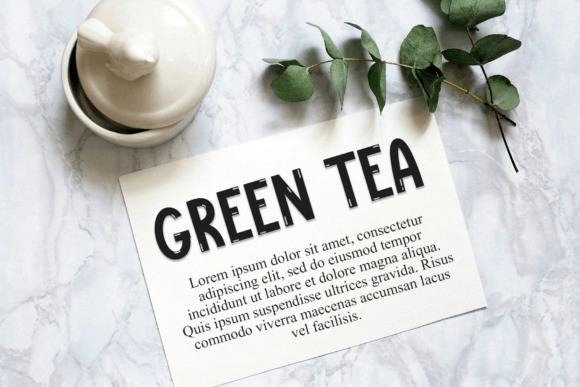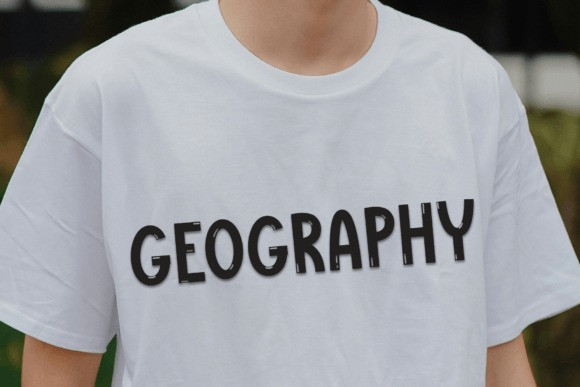
Monster Winter Font
Monster Winter Font is a fun and bold display font with a playful, icy style. Perfect for holiday cards, winter-themed designs, or anything that needs a cool and frosty look. It’s easy to read and full of personality!